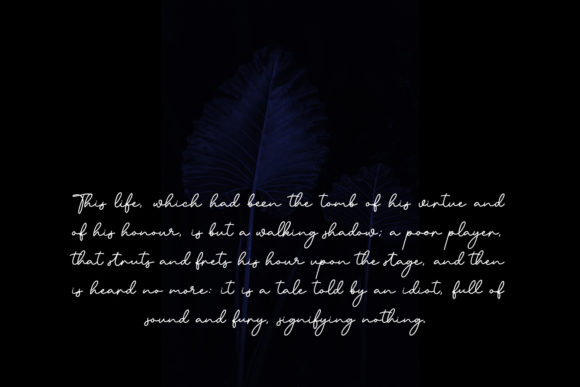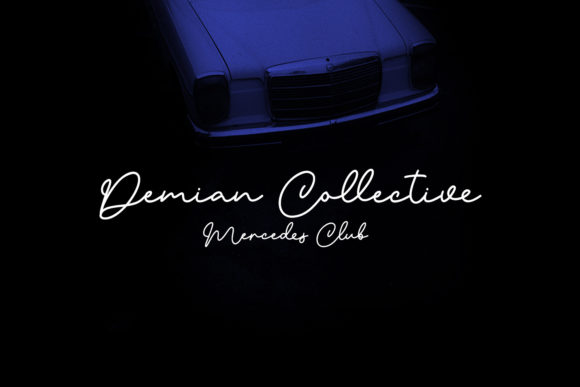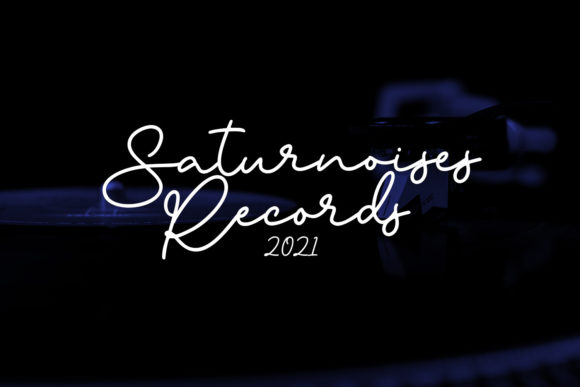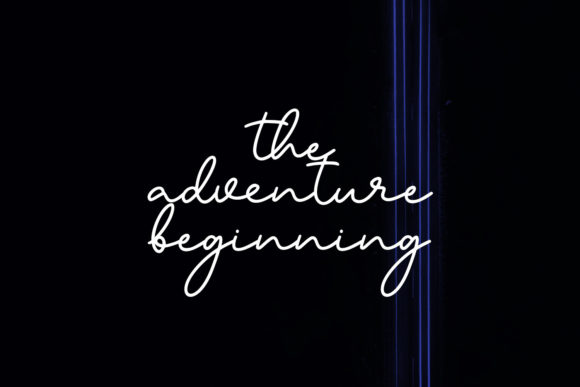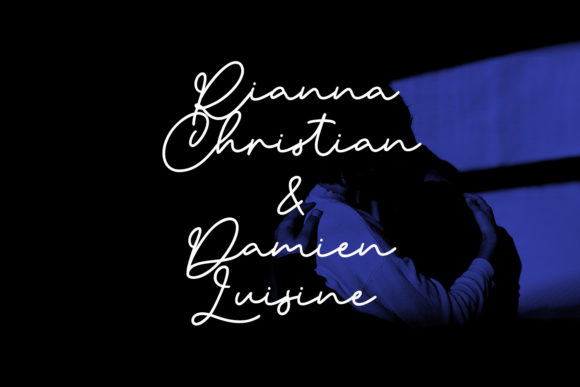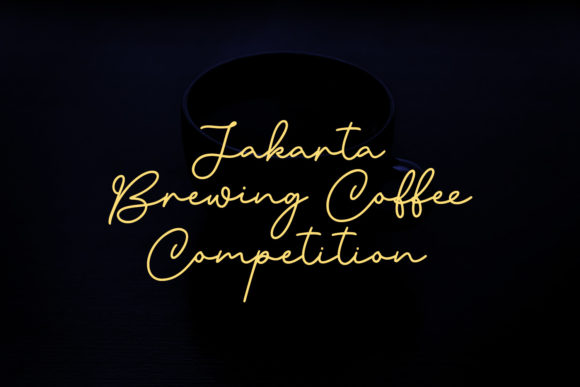
Cliquelly Font: The Delicate and Cursive Handwritten Font for Your Creative Projects
Are you a designer or crafter looking for a font that can add a touch of elegance and romance to your next project? Look no further than Cliquelly, a delicate and cursive handwritten font that is sure to impress. With its versatile nature, Cliquelly can be used in a wide range of applications, from greeting cards to headlines, and is guaranteed to bring a romantic feel to your designs.
What is Cliquelly Font?
Cliquelly is a beautifully crafted script font that features delicate and cursive handwritten letters. Its elegant and refined design makes it perfect for projects that require a touch of sophistication and romance. Whether you’re designing a wedding invitation, a greeting card, or a headline, Cliquelly is the perfect choice.
Key Features of Cliquelly Font
- Delicate and Cursive Design: Cliquelly features a delicate and cursive handwritten design that is sure to add a touch of elegance to your projects.
- Versatile: Cliquelly is a versatile font that can be used in a wide range of applications, from greeting cards to headlines.
- Romantic Feel: Cliquelly is guaranteed to add a romantic feel to your next project, making it perfect for wedding invitations, anniversary cards, and other romantic designs.
- Easy to Read: Despite its delicate design, Cliquelly is easy to read, making it perfect for body text and headlines.
Uses of Cliquelly Font
Cliquelly is a versatile font that can be used in a wide range of applications, including:
- Greeting Cards: Cliquelly is perfect for designing greeting cards for special occasions such as weddings, anniversaries, and birthdays.
- Wedding Invitations: Cliquelly’s romantic feel makes it perfect for designing wedding invitations and other wedding-related materials.
- Headlines: Cliquelly can be used to create beautiful and elegant headlines for magazines, newspapers, and websites.
- Logos: Cliquelly can be used to create elegant and sophisticated logos for businesses and brands.
- Social Media Graphics: Cliquelly can be used to create beautiful and engaging social media graphics, including Facebook posts, Instagram stories, and Twitter headers.
Tips for Using Cliquelly Font
Here are some tips for using Cliquelly font in your designs:
- Use it with a Simple Background: Cliquelly font looks best with a simple background that doesn’t distract from the text.
- Experiment with Colors: Cliquelly font looks great in a variety of colors, so don’t be afraid to experiment and find the perfect color for your design.
- Use it for Headlines and Titles: Cliquelly font is perfect for headlines and titles, but it can also be used for body text in smaller sizes.
- Pair it with Other Fonts: Cliquelly font can be paired with other fonts to create a unique and interesting design.
Cliquelly font is a beautiful and versatile script font that is perfect for designers and crafters looking to add a touch of elegance and romance to their projects. With its delicate and cursive handwritten design, Cliquelly is guaranteed to bring a romantic feel to your next project. Whether you’re designing a greeting card, a wedding invitation, or a headline, Cliquelly is the perfect choice.
- What is Cliquelly font?: Cliquelly font is a delicate and cursive handwritten script font.
- What is Cliquelly font used for?: Cliquelly font can be used in a wide range of applications, including greeting cards, wedding invitations, headlines, and logos.